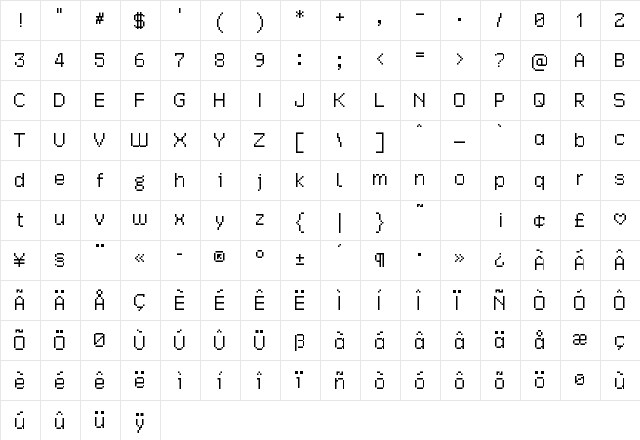
Doc.Tom Regular
Design Context for Doc.Tom Typeface
Doc.Tom takes a measured approach to typography — its balanced proportions and neutral character make it a reliable workhorse for both digital and print work.